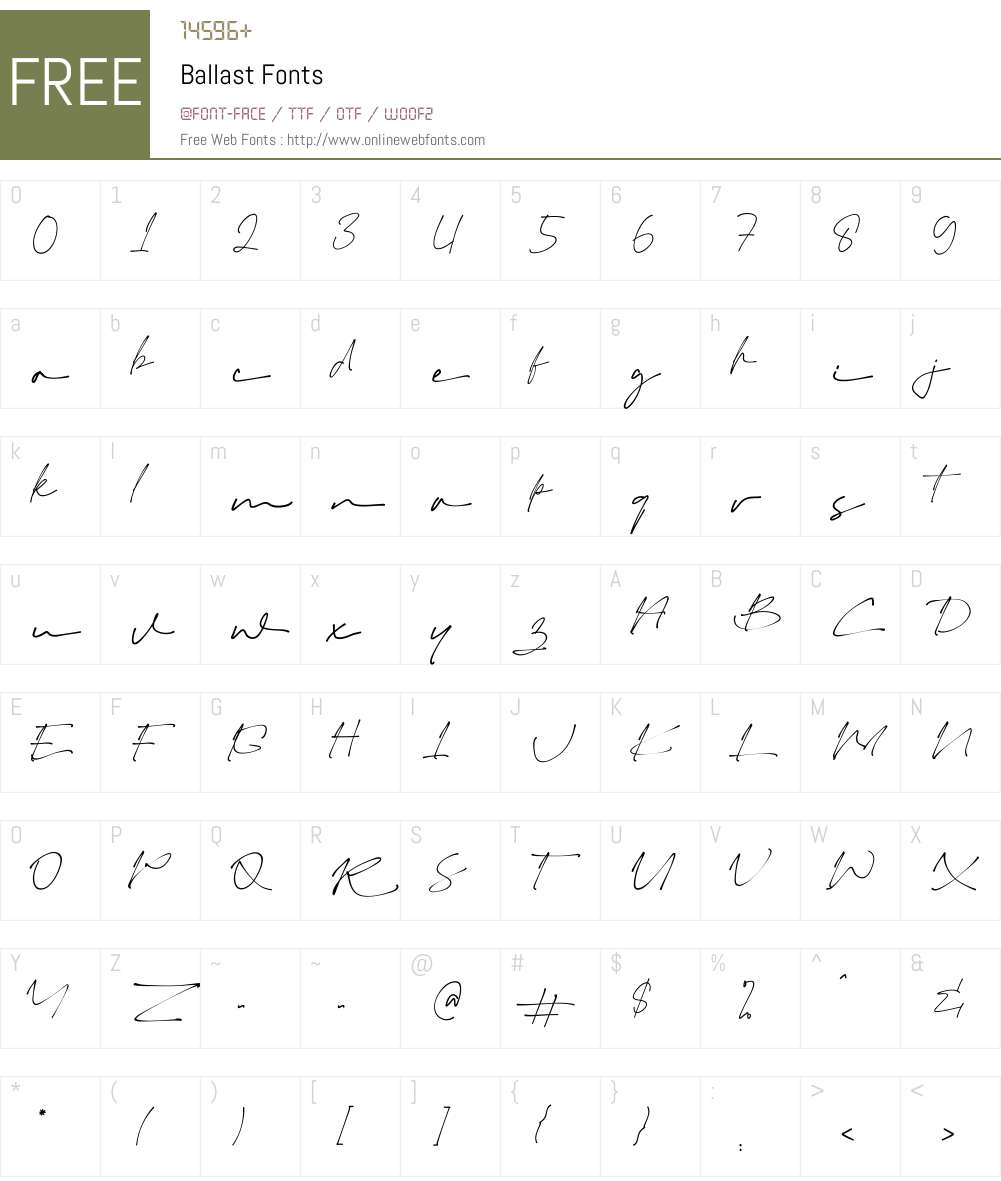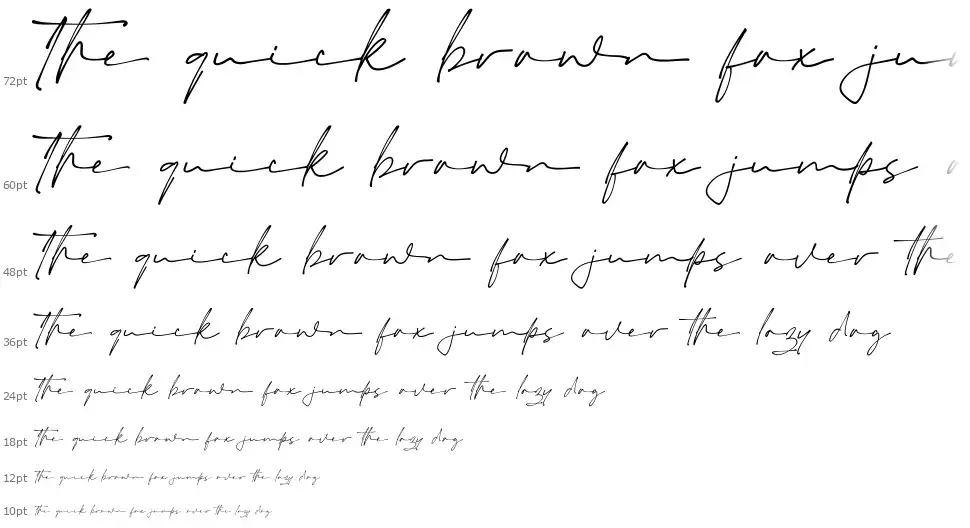
Ballast Font Download . Ballast regular font free download. Hello, thank for downloading ballast. sites using the typeface ballast with personal recommendations for similar web fonts, suggested font pairings and the closest. See how to download ballast regular for free! A great choice for highlighting your design elements. Introducing the new ballast font, an natural and unique handwritten font. This is a smooth and elegant handwritten typeface manufactured by thanoestd. Its distinctive, rounded font makes this font a. For those of you who are needing a touch of natural and unique. 64,445 downloads (5 yesterday) free for personal use.
Ballast regular font free download. Its distinctive, rounded font makes this font a. See how to download ballast regular for free! sites using the typeface ballast with personal recommendations for similar web fonts, suggested font pairings and the closest. Hello, thank for downloading ballast. For those of you who are needing a touch of natural and unique. Introducing the new ballast font, an natural and unique handwritten font. 64,445 downloads (5 yesterday) free for personal use. A great choice for highlighting your design elements. This is a smooth and elegant handwritten typeface manufactured by thanoestd.
Ballast Font Download sites using the typeface ballast with personal recommendations for similar web fonts, suggested font pairings and the closest. A great choice for highlighting your design elements. Its distinctive, rounded font makes this font a. Ballast regular font free download. sites using the typeface ballast with personal recommendations for similar web fonts, suggested font pairings and the closest. Introducing the new ballast font, an natural and unique handwritten font. This is a smooth and elegant handwritten typeface manufactured by thanoestd. For those of you who are needing a touch of natural and unique. Hello, thank for downloading ballast. See how to download ballast regular for free! 64,445 downloads (5 yesterday) free for personal use.
Ballast Fonts XYZ Type Ballast Font Download Introducing the new ballast font, an natural and unique handwritten font. See how to download ballast regular for free! For those of you who are needing a touch of natural and unique. This is a smooth and elegant handwritten typeface manufactured by thanoestd. Ballast regular font free download. A great choice for highlighting your design elements. Its distinctive, rounded font. Ballast Font Download.
Ballast Pro Athletic Slab Serif Font Vintage Font, Font SVG Fonts, Retro Serif Fonts, SVG Ballast Font Download Its distinctive, rounded font makes this font a. Hello, thank for downloading ballast. This is a smooth and elegant handwritten typeface manufactured by thanoestd. For those of you who are needing a touch of natural and unique. See how to download ballast regular for free! Introducing the new ballast font, an natural and unique handwritten font. sites using the typeface. Ballast Font Download.
Ballast Pro Athletic Slab Serif Font Vintage Font, Font SVG Fonts, Retro Serif Fonts, SVG Ballast Font Download Hello, thank for downloading ballast. 64,445 downloads (5 yesterday) free for personal use. sites using the typeface ballast with personal recommendations for similar web fonts, suggested font pairings and the closest. Its distinctive, rounded font makes this font a. For those of you who are needing a touch of natural and unique. Ballast regular font free download. See how to. Ballast Font Download.
Ballast Fonts Shmonts Ballast Font Download A great choice for highlighting your design elements. sites using the typeface ballast with personal recommendations for similar web fonts, suggested font pairings and the closest. Ballast regular font free download. Its distinctive, rounded font makes this font a. This is a smooth and elegant handwritten typeface manufactured by thanoestd. For those of you who are needing a touch of. Ballast Font Download.
Ballast Font Download This is a smooth and elegant handwritten typeface manufactured by thanoestd. See how to download ballast regular for free! A great choice for highlighting your design elements. Introducing the new ballast font, an natural and unique handwritten font. Ballast regular font free download. sites using the typeface ballast with personal recommendations for similar web fonts, suggested font pairings and the. Ballast Font Download.
Ballast Font download free Ballast Font Download Ballast regular font free download. This is a smooth and elegant handwritten typeface manufactured by thanoestd. 64,445 downloads (5 yesterday) free for personal use. See how to download ballast regular for free! For those of you who are needing a touch of natural and unique. Its distinctive, rounded font makes this font a. sites using the typeface ballast with personal. Ballast Font Download.
Ballast Font Download A great choice for highlighting your design elements. See how to download ballast regular for free! sites using the typeface ballast with personal recommendations for similar web fonts, suggested font pairings and the closest. For those of you who are needing a touch of natural and unique. Ballast regular font free download. Introducing the new ballast font, an natural and. Ballast Font Download.
Ballast Fonts XYZ Type Ballast Font Download Introducing the new ballast font, an natural and unique handwritten font. This is a smooth and elegant handwritten typeface manufactured by thanoestd. sites using the typeface ballast with personal recommendations for similar web fonts, suggested font pairings and the closest. Hello, thank for downloading ballast. 64,445 downloads (5 yesterday) free for personal use. See how to download ballast regular for. Ballast Font Download.
Ballast Fonts XYZ Type Ballast Font Download A great choice for highlighting your design elements. This is a smooth and elegant handwritten typeface manufactured by thanoestd. Its distinctive, rounded font makes this font a. Ballast regular font free download. sites using the typeface ballast with personal recommendations for similar web fonts, suggested font pairings and the closest. Introducing the new ballast font, an natural and unique handwritten. Ballast Font Download.